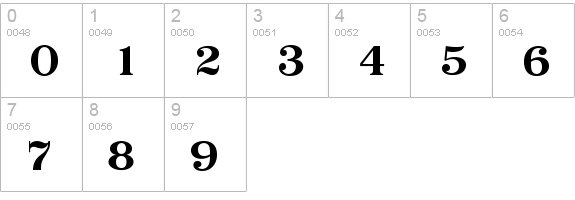
Priamos-DemiBold is a sub-bold, structured variant in the Priamos typeface family \xE2\x80\x94 well suited to sub-headlines and emphasised passages.
Priamos-DemiBold font is a modern and stylish typeface that exudes sophistication and elegance. Its bold and strong appearance makes it perfect for creating eye-catching headings and titles. The clean lines and unique design of Priamos-DemiBold font make it stand out in any project, whether it's for print or digital media. Not only does Priamos-DemiBold font offer a visually appealing aesthetic, but it also provides excellent readability and legibility, ensuring that your message gets across effectively. Whether you're designing a website, a poster, a logo, or any other creative project, Priamos-DemiBold font will elevate your designs to the next level. The best part is that Priamos-DemiBold font is available for free download at FontsMarket.com. This means you can access this premium font without any cost, making it a valuable addition to your font library. Don't miss out on the opportunity to enhance your designs with the stunning Priamos-DemiBold font today!